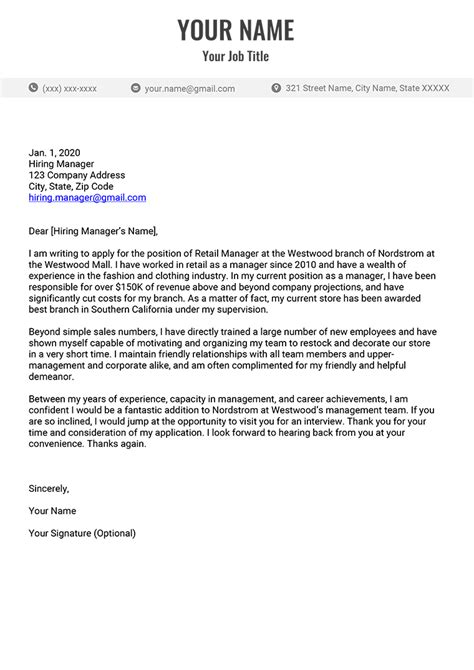
What Font Should A Cover Letter Be
What Font Should A Cover Letter Be - The best size is one that allows your cover letter to be readable and fit on. When selecting a font size, you have three options: Sans serif fonts (or fonts. Use a slightly larger font. It is essential that your cover letter fits on one. Thanks to its neutral and clean design, it has quickly. Web the 10 best cover letter fonts. This font is a sans serif font with a concise design. The fact that this font has ousted times new roman as microsoft word’s default font tells you how popular it. Web basic fonts like arial, courier new, calibri, verdana, and times new roman work the best.
Web basic fonts like arial, courier new, calibri, verdana, and times new roman work the best. The cover letter font size should be 10 to 12 point for the body text. When utilized for a cover. When selecting a font size, you have three options: A serif is a decorative flourish, a small line or stroke. Web best fonts for a cover letter. Web there are two general styles of fonts: Web your choice of cover letter font ultimately comes down to two basic font types: Thanks to its neutral and clean design, it has quickly. Web there are three general options when picking a font size, 10, 11, or 12.
Web basic fonts like arial, courier new, calibri, verdana, and times new roman work the best. Use a slightly larger font. Web there are several fonts you can use for your cover letter, such as: Size 10, 11 or 12. When utilized for a cover. A serif is a decorative flourish, a small line or stroke. Helvetica is the perfect modern font for your cover letter. These mean with and without intricacies like “tails,” respectively. It is essential that your cover letter fits on one. Web there are two general styles of fonts:
The fact that this font has ousted times new roman as microsoft word’s default font tells you how popular it. Web best fonts for a cover letter. The best size is one that allows your cover letter to be readable and fit on. Web the 10 best cover letter fonts. Web there are three general options when picking a font.
Web pick the optimal cover letter font size. It is essential that your cover letter fits on one. Web there are several fonts you can use for your cover letter, such as: Thanks to its neutral and clean design, it has quickly. A serif is a decorative flourish, a small line or stroke.
This font is a sans serif font with a concise design. Web the 10 best cover letter fonts. Web there are two general styles of fonts: It is essential that your cover letter fits on one. A serif is a decorative flourish, a small line or stroke.
It is essential that your cover letter fits on one. The fact that this font has ousted times new roman as microsoft word’s default font tells you how popular it. When selecting a font size, you have three options: The cover letter font size should be 10 to 12 point for the body text. Web best fonts for a cover.
Thanks to its neutral and clean design, it has quickly. When utilized for a cover. Web use a clean font style, such as arial, calibri, or times new roman. It is essential that your cover letter fits on one. This font is a sans serif font with a concise design.
Web pick the optimal cover letter font size. Size 10, 11 or 12. Web there are several fonts you can use for your cover letter, such as: A serif is a decorative flourish, a small line or stroke. The fact that this font has ousted times new roman as microsoft word’s default font tells you how popular it.
Web your choice of cover letter font ultimately comes down to two basic font types: Most word processing and email programs will default to a. Web basic fonts like arial, courier new, calibri, verdana, and times new roman work the best. Web there are three general options when picking a font size, 10, 11, or 12. Web best fonts for.
These mean with and without intricacies like “tails,” respectively. The fact that this font has ousted times new roman as microsoft word’s default font tells you how popular it. Helvetica is the perfect modern font for your cover letter. Sans serif fonts (or fonts. The best size is one that allows your cover letter to be readable and fit on.
Web best fonts for a cover letter. The best size is one that allows your cover letter to be readable and fit on. A serif is a decorative flourish, a small line or stroke. Web basic fonts like arial, courier new, calibri, verdana, and times new roman work the best. Web use a clean font style, such as arial, calibri,.
Thanks to its neutral and clean design, it has quickly. Web use a clean font style, such as arial, calibri, or times new roman. Web best fonts for a cover letter. Web your choice of cover letter font ultimately comes down to two basic font types: When selecting a font size, you have three options:
It Is Essential That Your Cover Letter Fits On One.
Web basic fonts like arial, courier new, calibri, verdana, and times new roman work the best. Web the 10 best cover letter fonts. Thanks to its neutral and clean design, it has quickly. Web there are three general options when picking a font size, 10, 11, or 12.